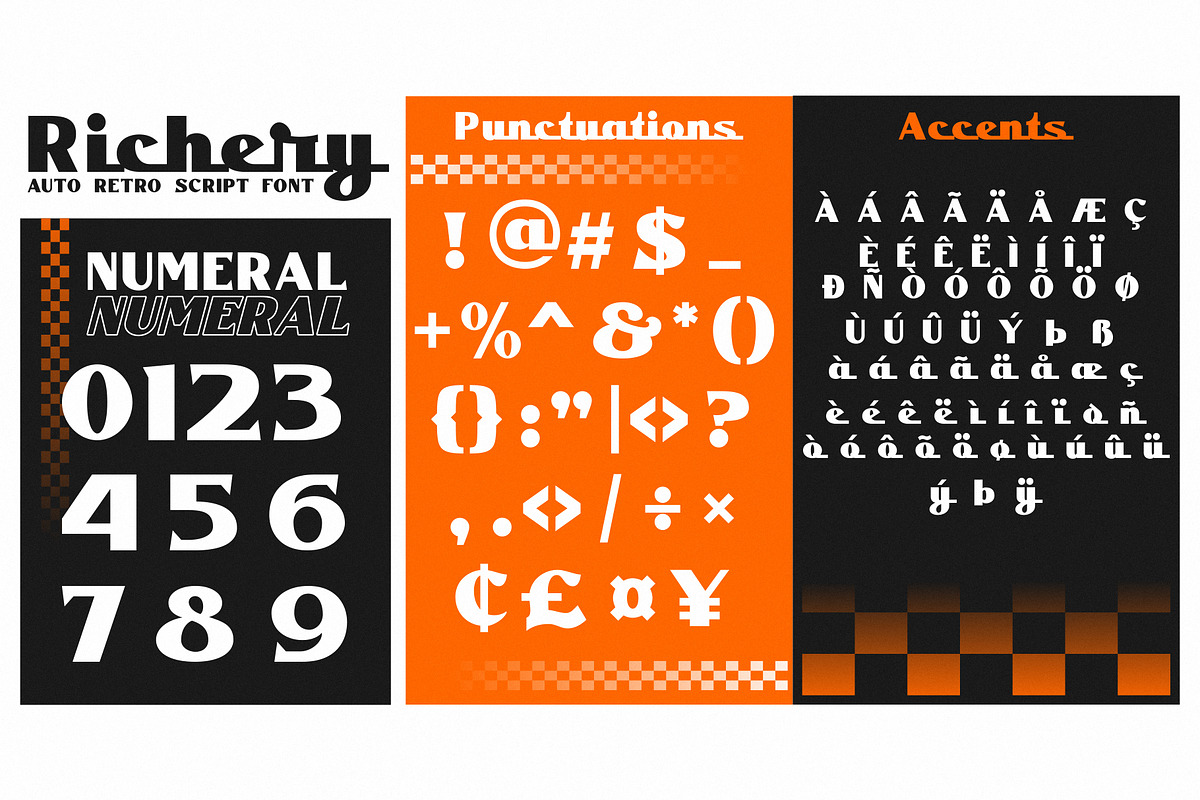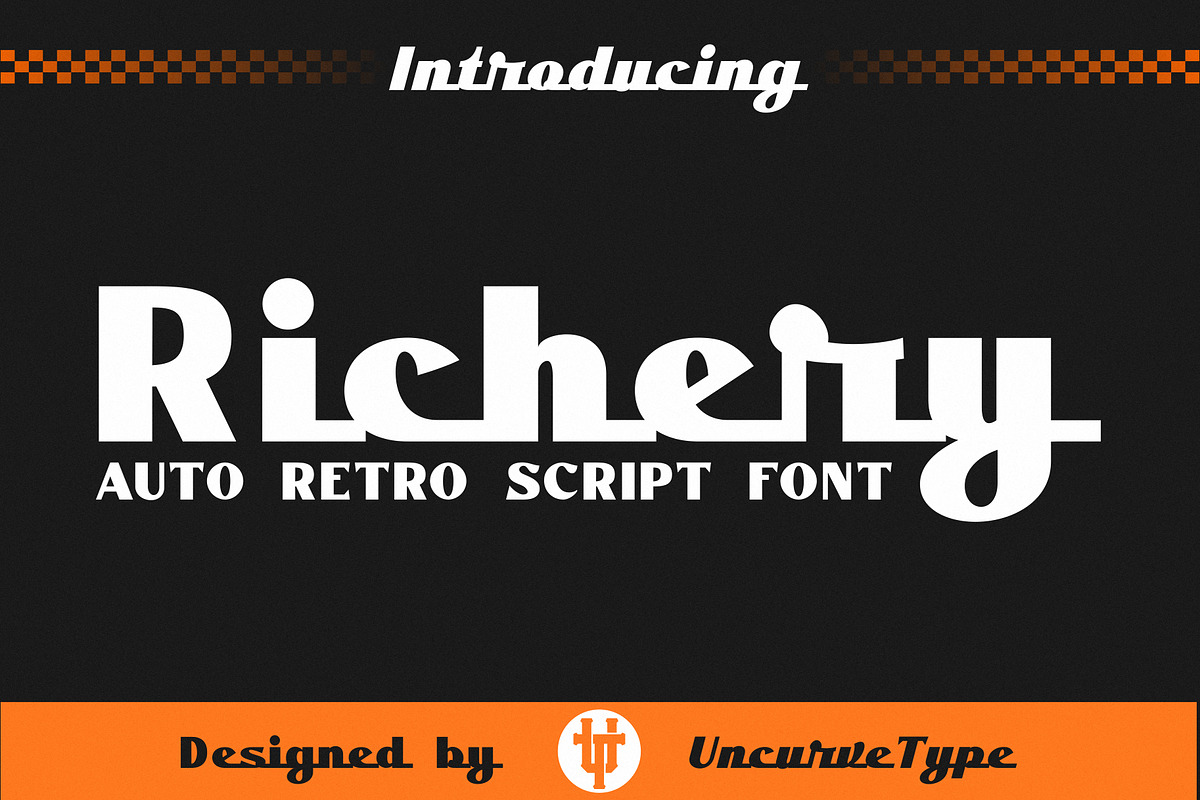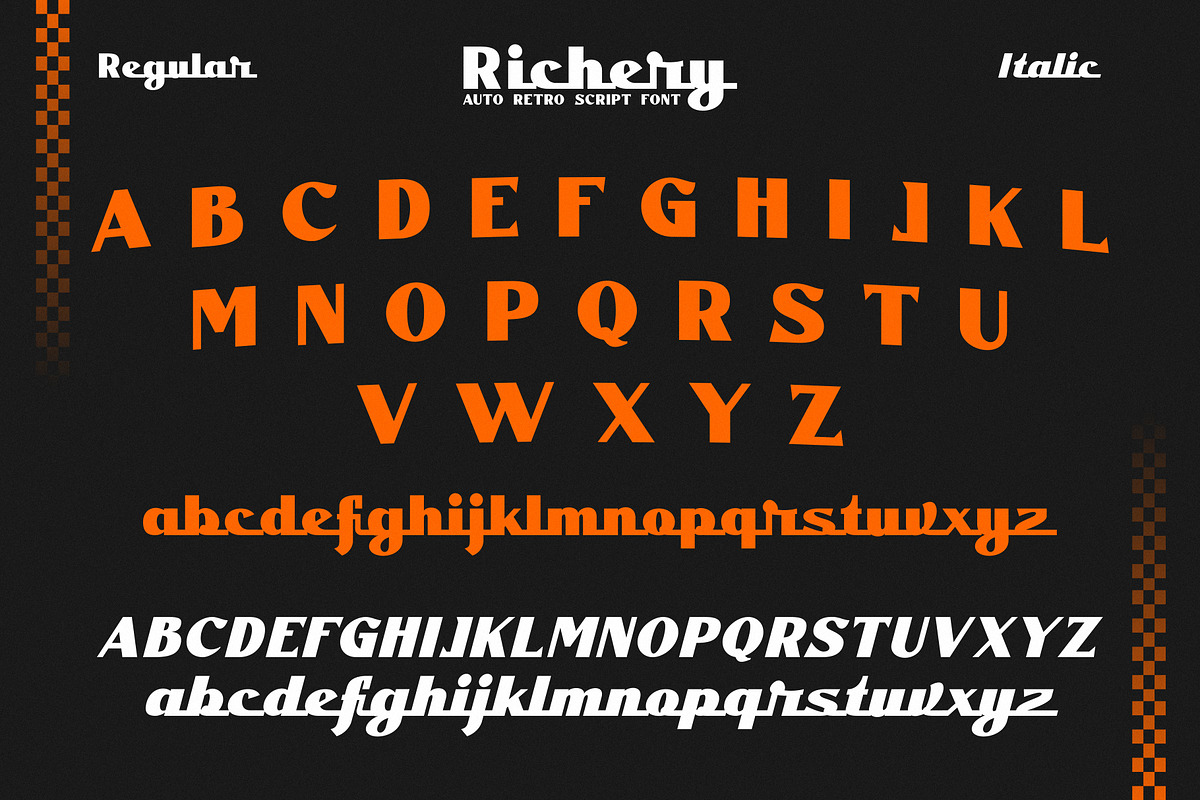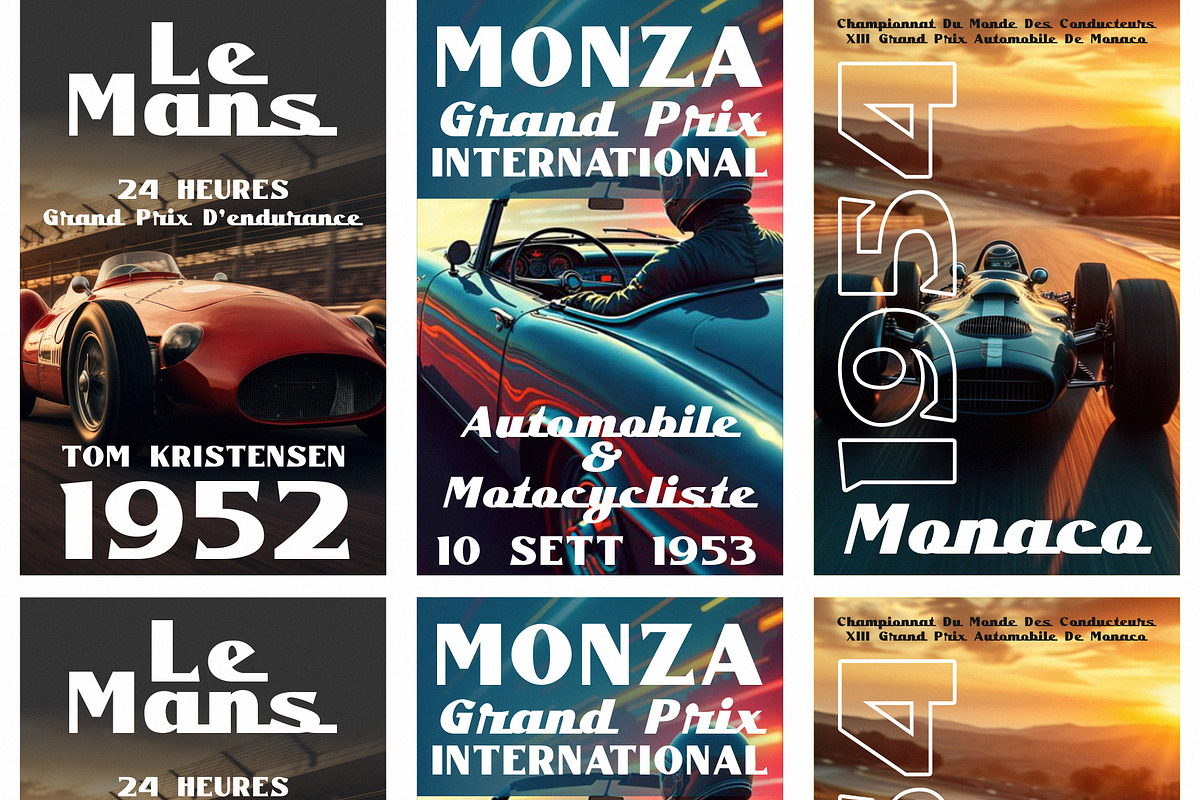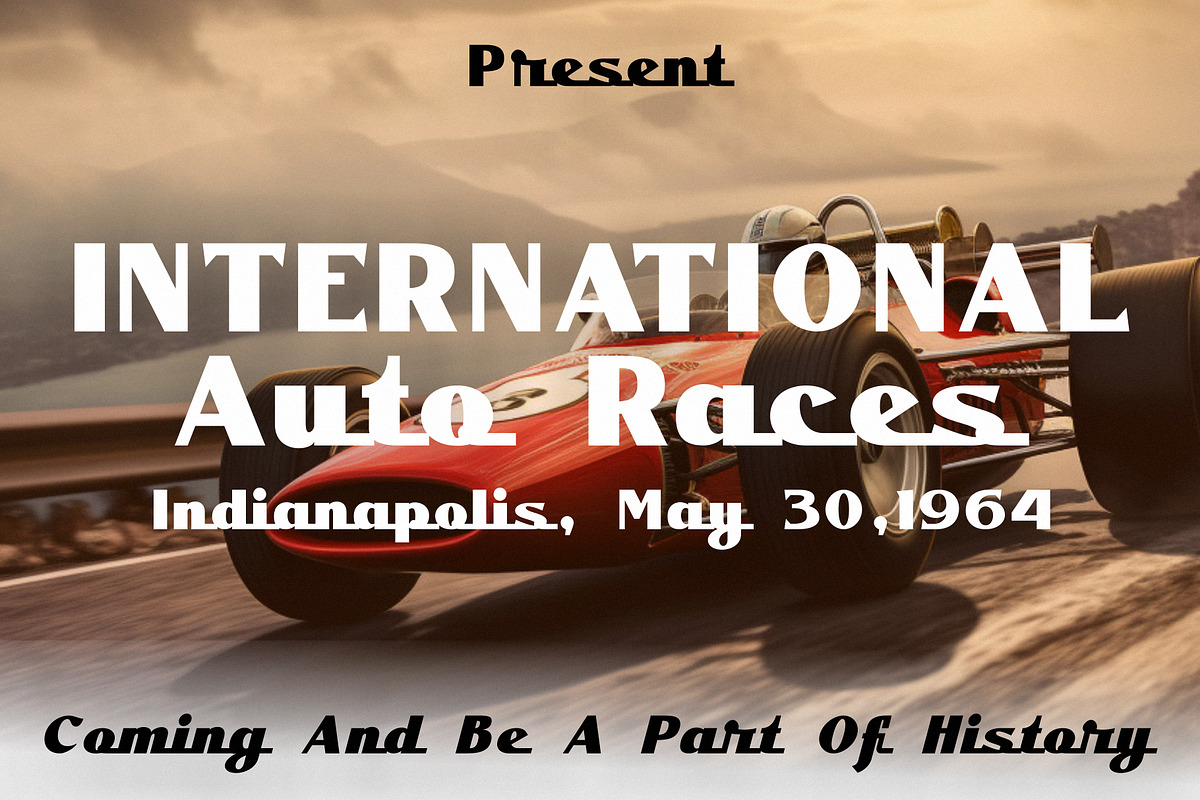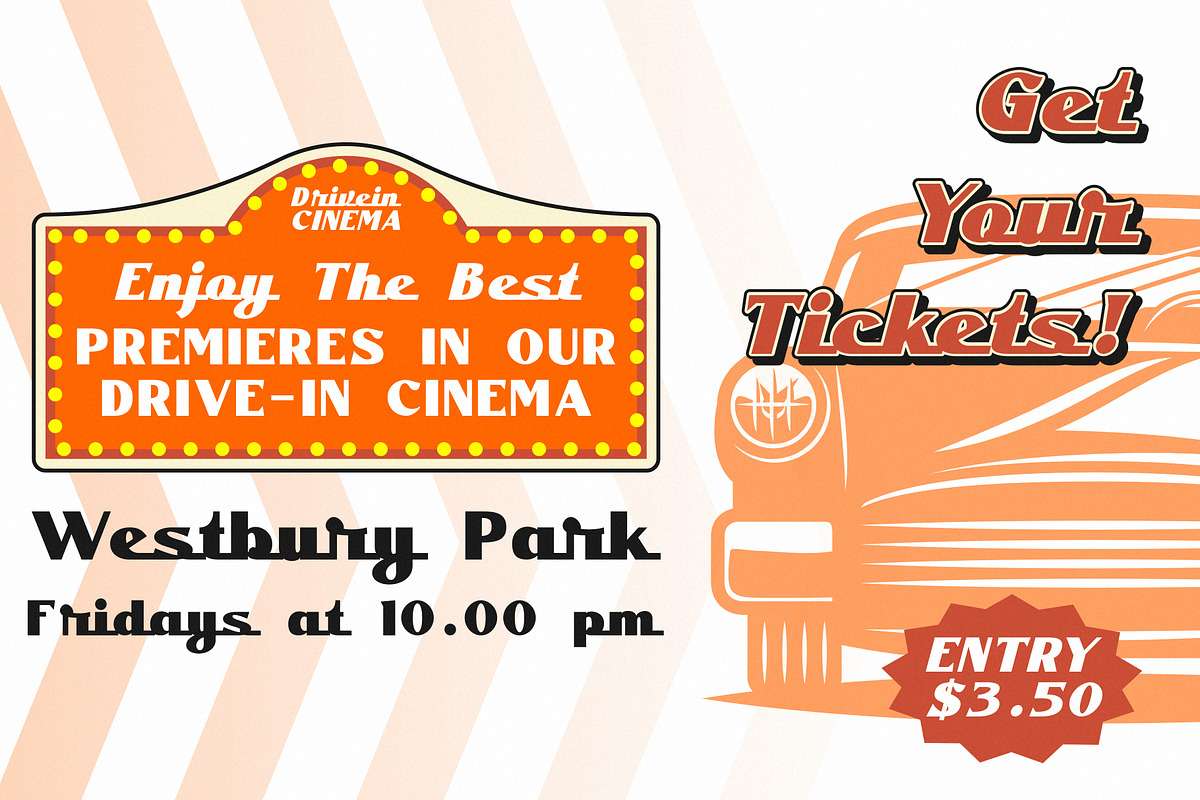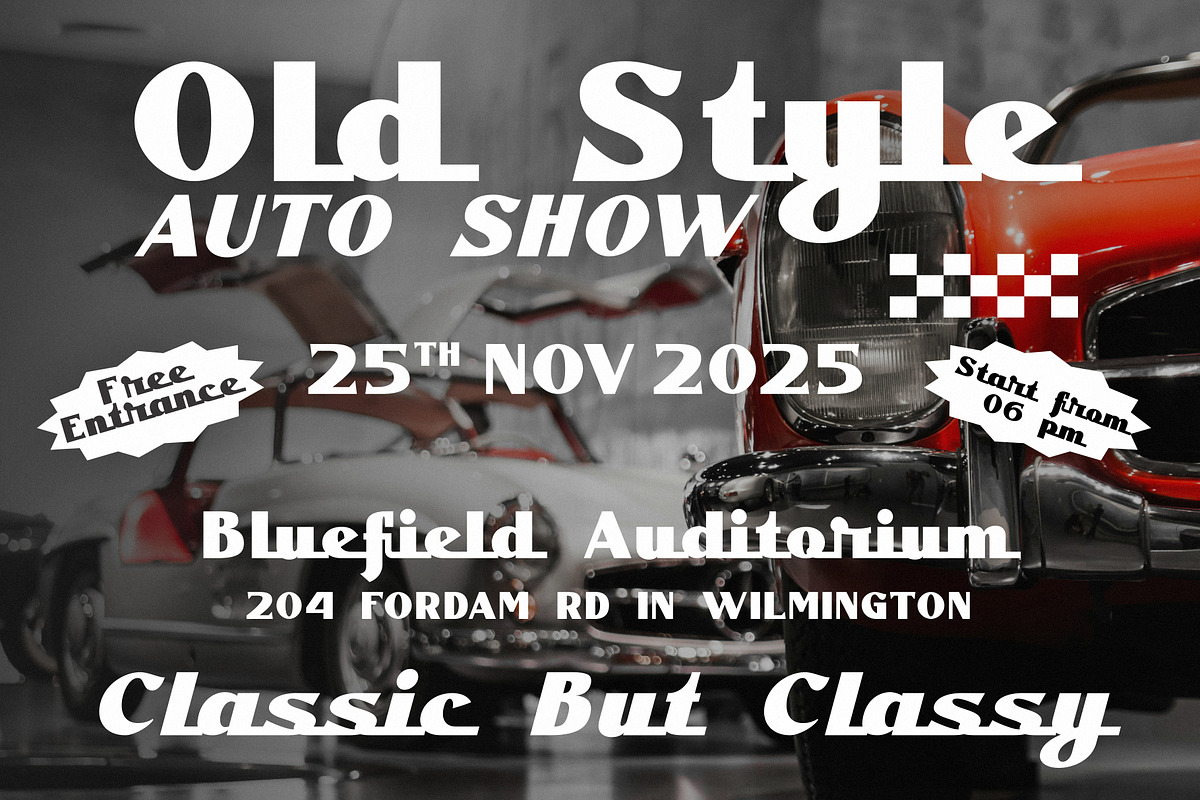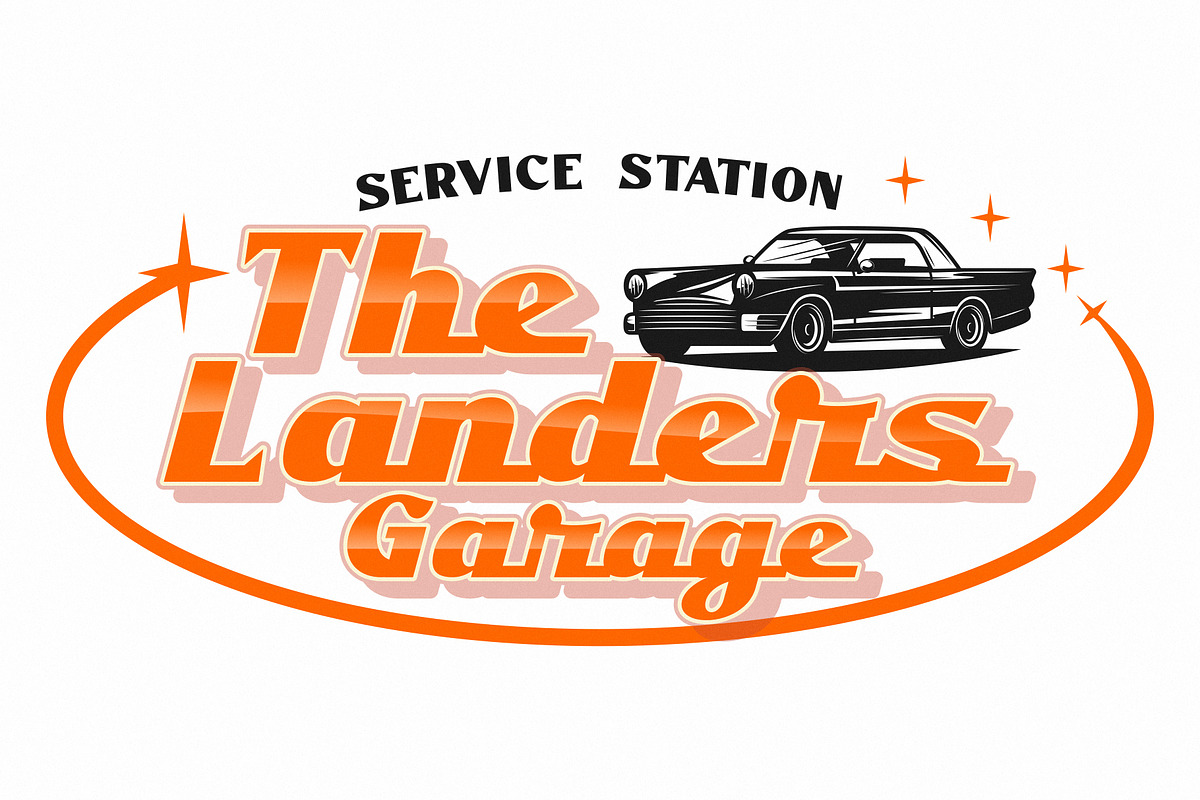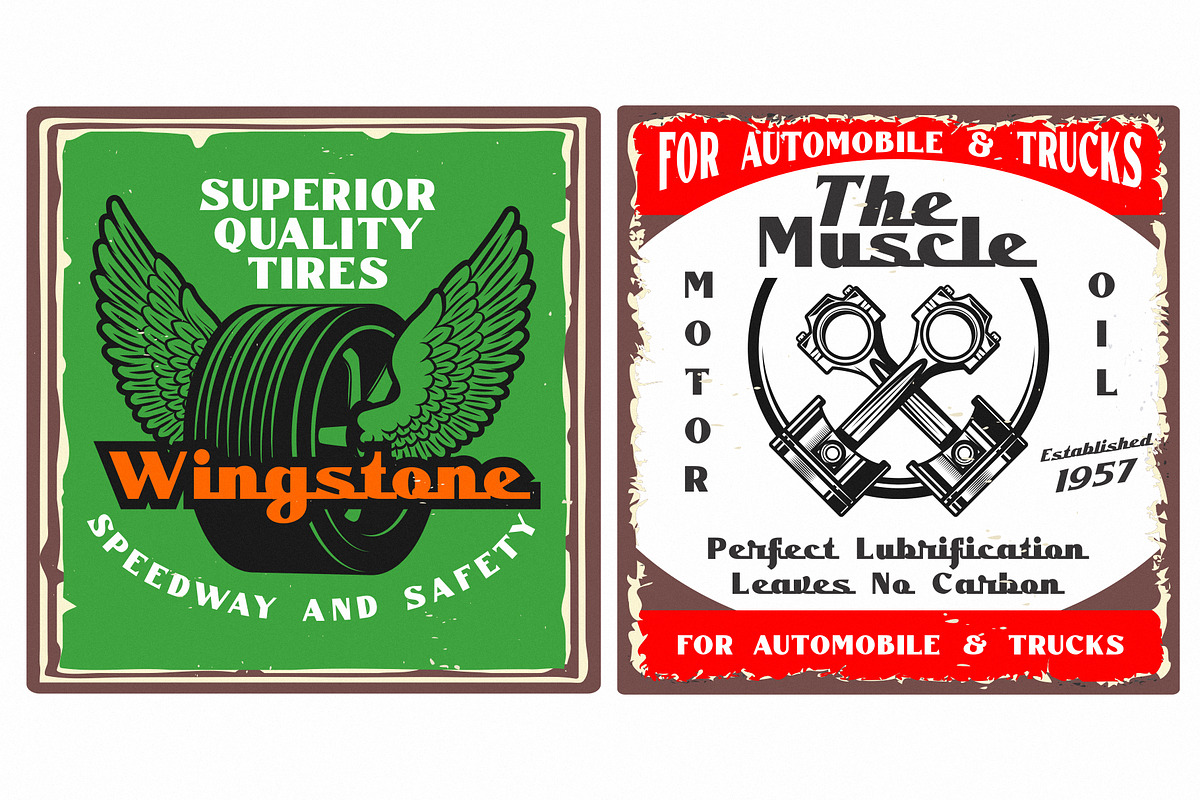
Richery Retro Script
Introducing "Richery," a retro script font inspired by the vintage world of auto sports and classic Grand Prix posters. Richery comes in two versatile styles—Regular and Italic—perfectly paired to create a dynamic combination that enhances any design project with a bold, nostalgic flair.
With its aesthetic, sporty feel, Richery is ideal for creating authentic logos, sports designs, flyers, posters, and branding materials. Its retro charm shines on magazines, book and album covers, movie posters, apparel designs, titles, brochures, labels, and product packaging. Perfect for automotive designs, motorcycles, garages, and sports events, Richery captures the essence of speed and adventure, making it ideal for headlines, headers, modern t-shirts, and more.
From the vintage world of racing to contemporary automotive branding, Richery brings an energetic, timeless vibe to any project. Whether you're designing for a racing event, garage signage, or automotive merchandise, Richery adds a bold, classic touch that stands out with style and sophistication.